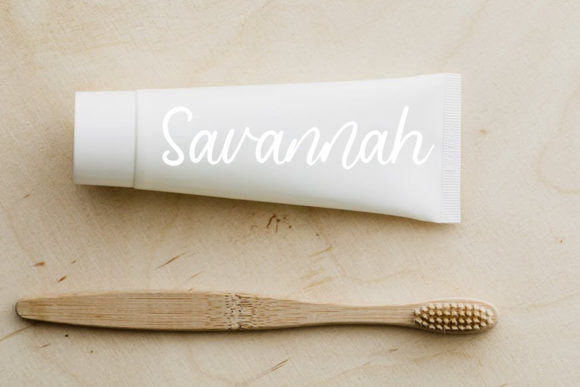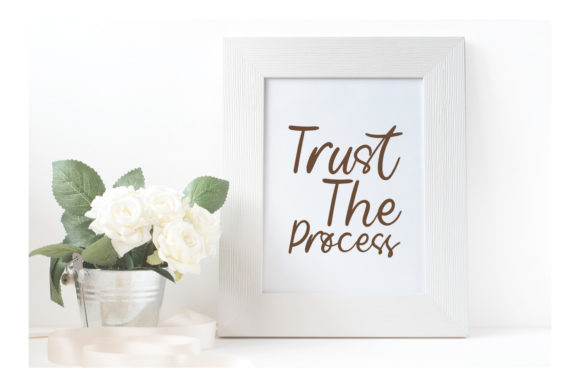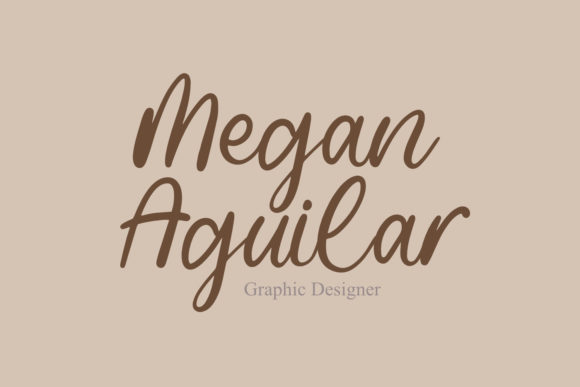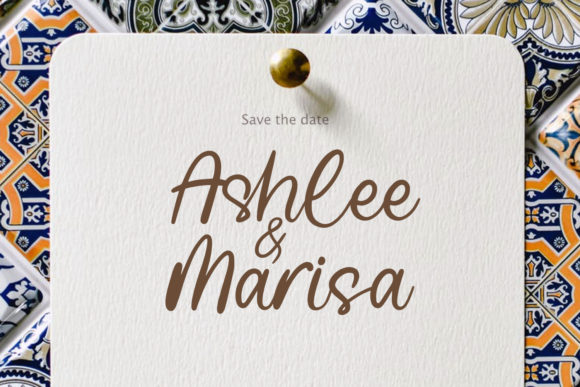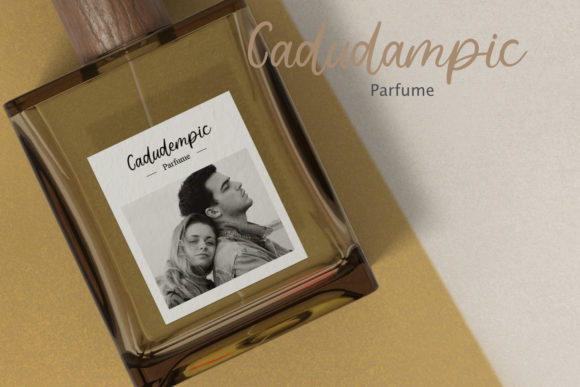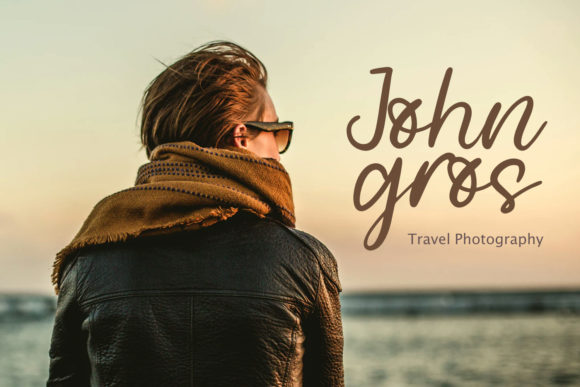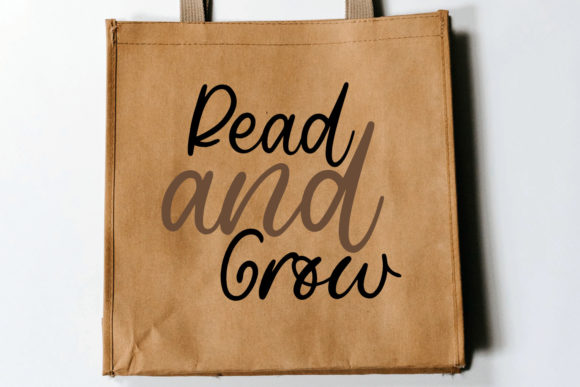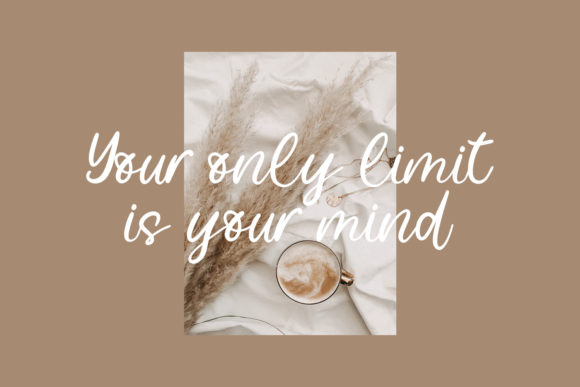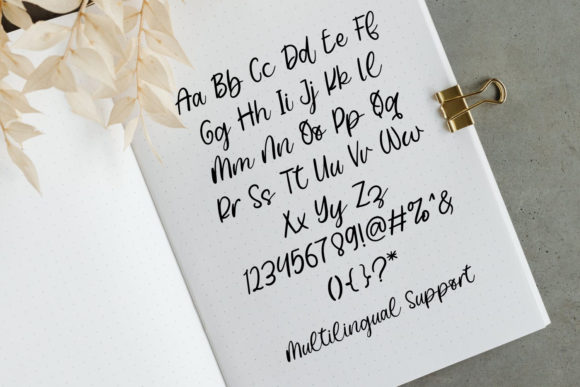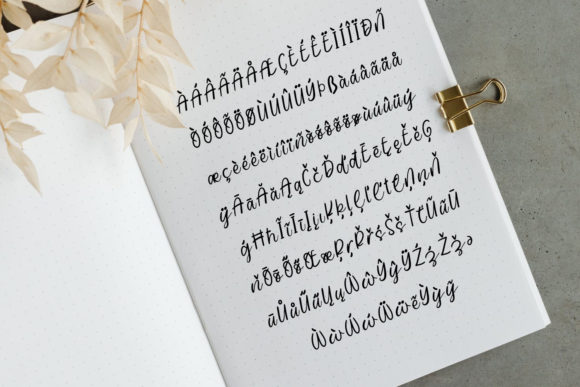
Billowy Font
About Billowy Font
Billowy is a well balanced and delicate script font. Featuring characters that dance along the baseline, this font will add a luxury spark to any design project that you wish to create!